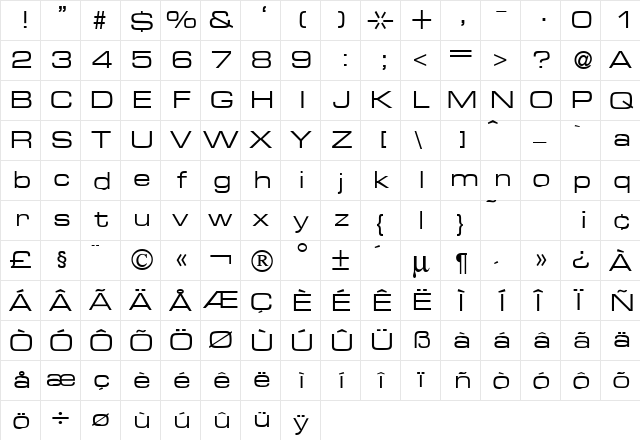
EuralBlackDB Normal
Design Context for EuralBlackDB Typeface
EuralBlackDB offers clean, dependable letterforms without strong stylistic allegiance, making it a practical choice for designers who need flexibility.